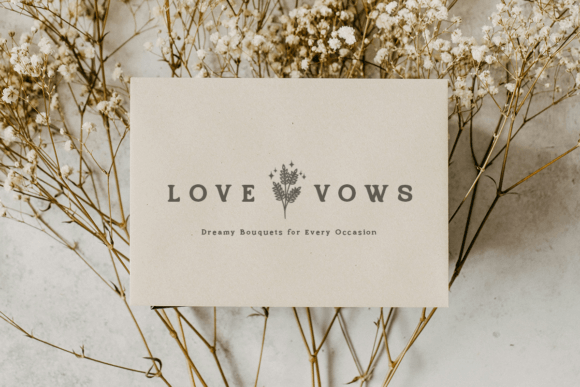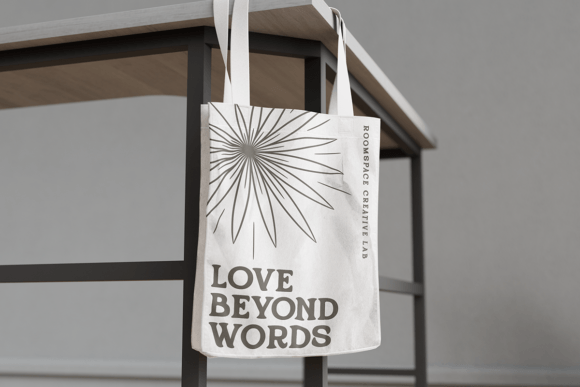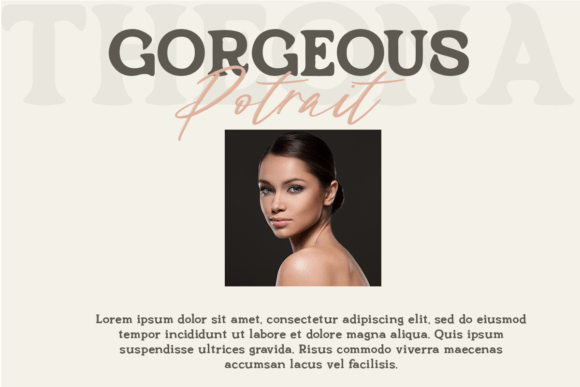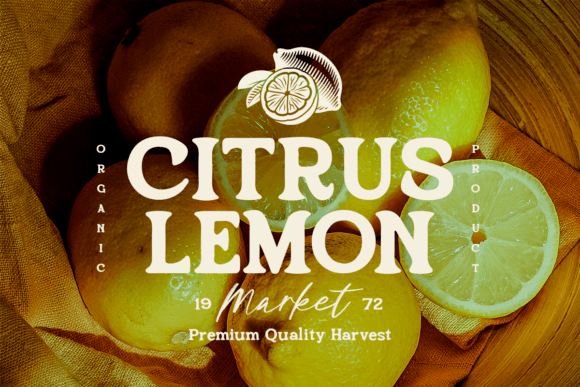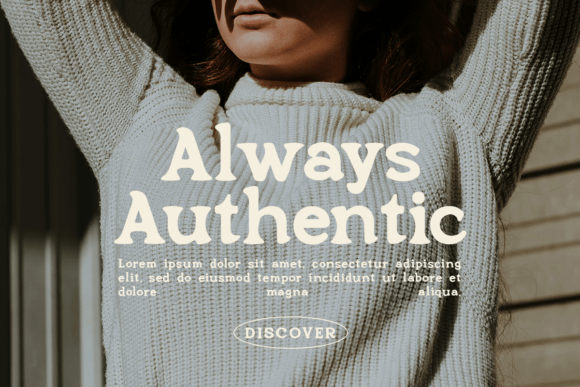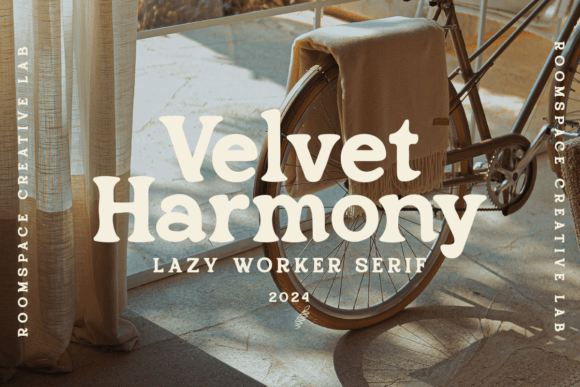
Introduction to Lazy Worker Font
Lazy Worker, is a unique handwritten serif font that seamlessly blends modern and retro aesthetics.
Crafted meticulously by hand, this font adds a personal touch to your design projects, making it perfect for branding, posters, invitations, and web designs The combination of its distinct hand-drawn style and elegant serif structure ensures that your work stands out with a touch of charm and sophistication.
Key Features of Lazy Worker Font
Why Choose Lazy Worker Font?